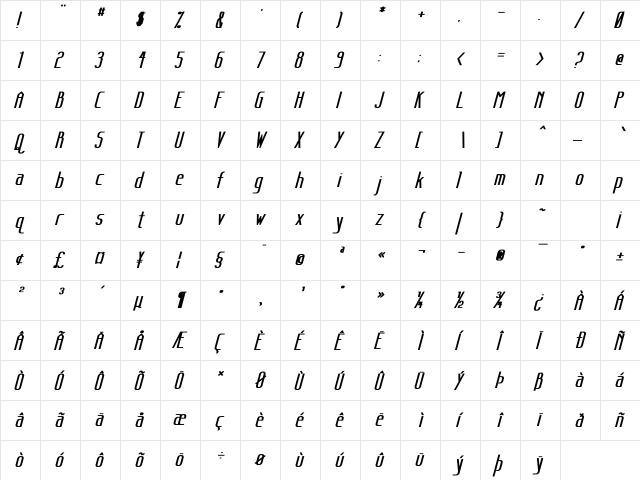
Sanity Bold Italic
Design Context for Sanity Typeface
Sanity is a composed and adaptable typeface that performs quietly and consistently across a wide range of design contexts. The dynamic lean of this cut emphasises speed and emphasis in any layout. The heavy weight commands attention and anchors typographic hierarchies.
Pro Tip: Use Sanity for emphasis, pull quotes, and subheadings where its slanted energy can add rhythm to the layout.